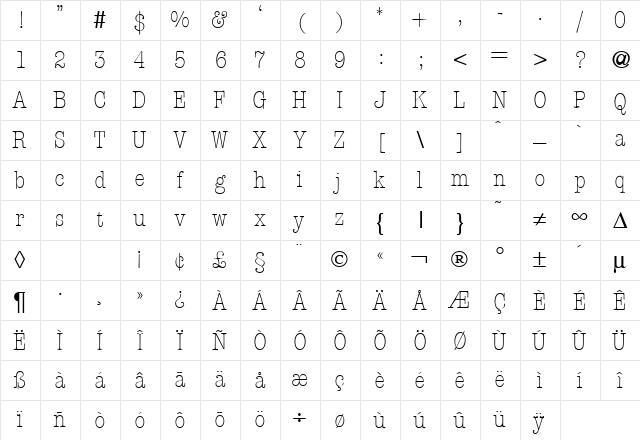
ModernTypewriterCondLight Regular Free Font
ModernTypewriterCondLight Regular
Design Context for ModernTypewriterCondLight
ModernTypewriterCondLight uses fixed-width spacing throughout, giving it the structured, systematic character associated with coding environments and technical documentation. Its slender proportions lend an understated elegance to any composition.